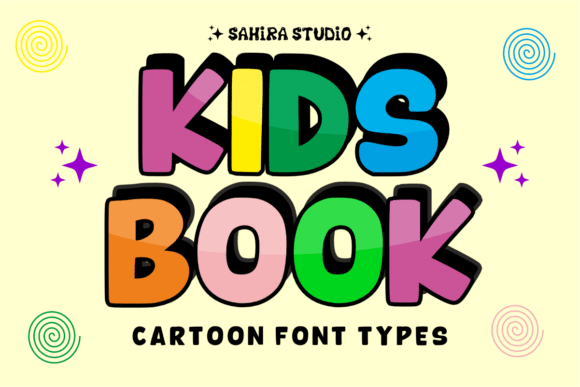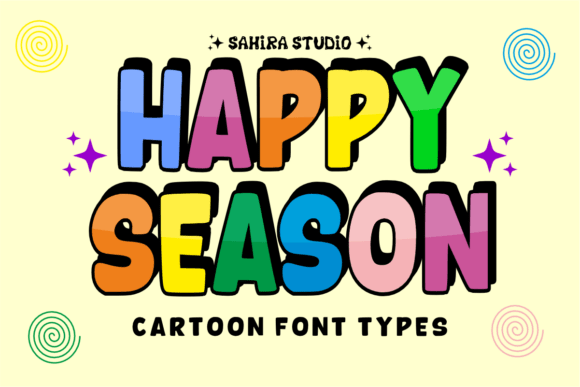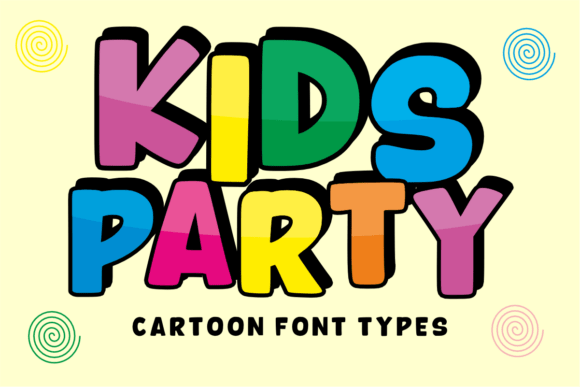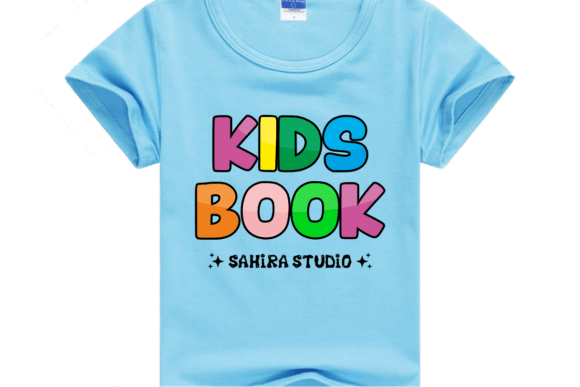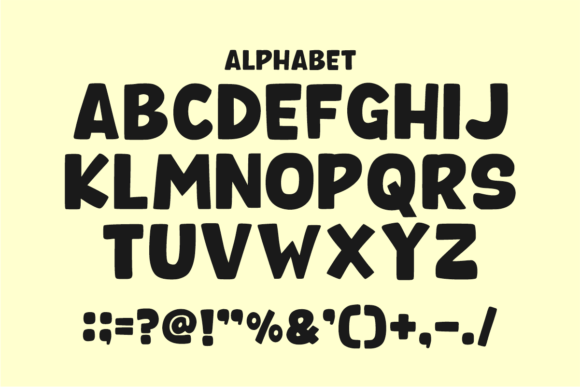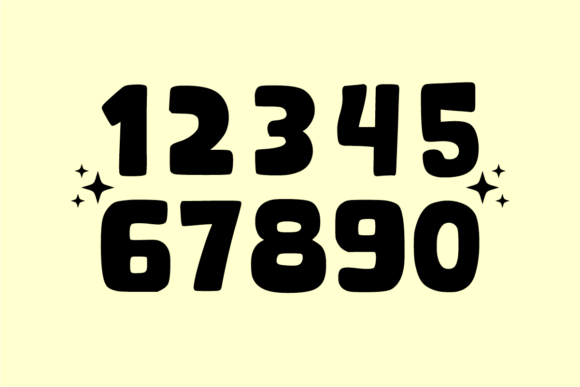
Experience the Delightful Charm of Comic Story Font
Are you ready to unleash your creativity and bring back the nostalgic charm of your childhood cartoons? Look no further than the Comic Story font, a modern, comic-style font that is sure to captivate your audience with its playful and quirky elegance. In this article, we’ll dive into the world of Comic Story font, exploring its unique features, versatility, and the endless possibilities it offers for designers, crafters, and artists.
The Unique Charm of Comic Story Font
Comic Story font is a standout font characterized by its modern, comic-style strokes that evoke memories of every childhood’s favorite cartoon. The capital-letter characters radiate a quirky charm, boasting unique elegance and playful cuteness that’s truly unforgettable. The font’s distinctive style is perfect for creating visually appealing designs that are sure to capture the attention of your audience.
Endless Possibilities for Creative Projects
The Comic Story display font effortlessly brings a touch of whimsy and fun to a wide range of creative projects, including:
- Children’s craft projects: Add a playful touch to your craft projects, such as handmade cards, gift tags, and DIY decorations.
- Animated tales: Bring your animated stories to life with a font that’s reminiscent of classic cartoons.
- Creatively designed t-shirts: Create eye-catching designs for kids’ t-shirts that are sure to delight both kids and parents.
- Personalized mugs: Add a touch of whimsy to personalized mugs, perfect for kids’ parties or everyday use.
- Carry-all tote bags: Design fun and colorful tote bags that are perfect for kids’ outings.
- Children’s coloring books: Bring your coloring books to life with a font that’s sure to delight kids and parents alike.
The Comic Story font is incredibly versatile, making it the perfect choice for all children-related necessities. Whether you’re a designer, crafter, or artist, this font is sure to inspire your creativity and bring your ideas to life. Its playful and quirky style is sure to appeal to kids and adults alike, making it perfect for a wide range of applications.
Unleash Your Creativity with Comic Story Font
Comic Story font is more than just a font – it’s a creative tool that can help you bring your wildest imaginations to life. With its unique charm and versatility, this font is sure to inspire you to create something truly special. Whether you’re working on a children’s book, designing a t-shirt, or creating a craft project, Comic Story font is the perfect choice.
In conclusion, Comic Story font is a standout font that is sure to bring a touch of whimsy and fun to your creative projects. With its unique charm, versatility, and endless possibilities, this font is perfect for designers, crafters, and artists who want to bring their ideas to life. So why wait? Dive into the creative world of Comic Story font today and experience the delightful charm of this modern, comic-style font.